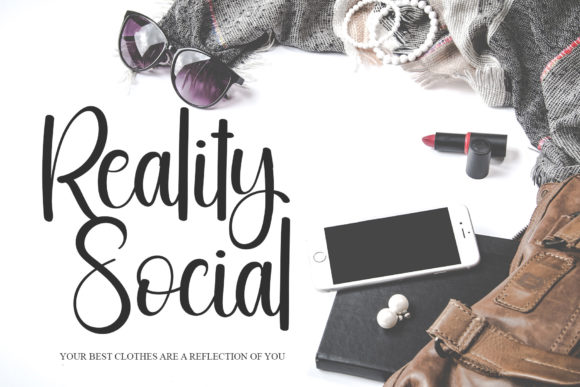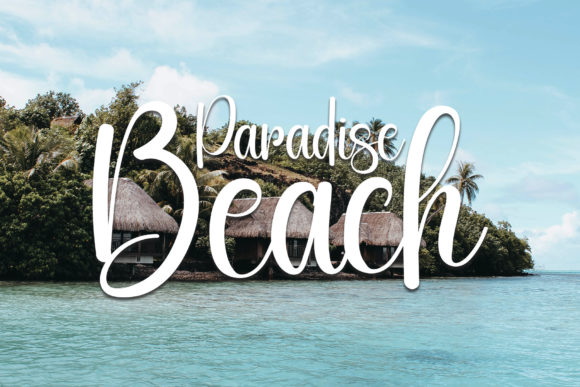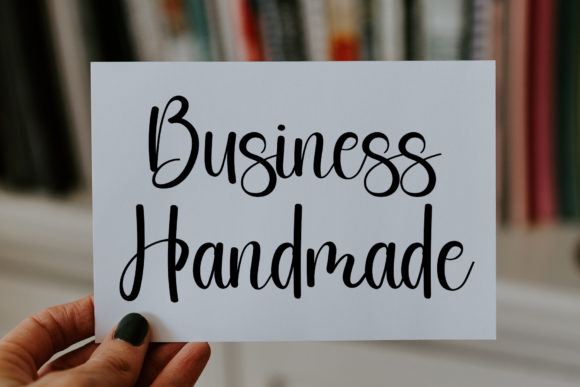
Daily Spring is a stylish and incredibly elegant handwritten font.
It looks stunning on wedding invitations, thank you cards, quotes, greeting cards, logos, business cards, and every design that needs a handwritten touch .
Daily Spring Font offers exceptional quality and versatility, making it a valuable addition to your design toolkit. Whether you’re creating for personal projects or commercial use, Daily Spring Font delivers professional results.